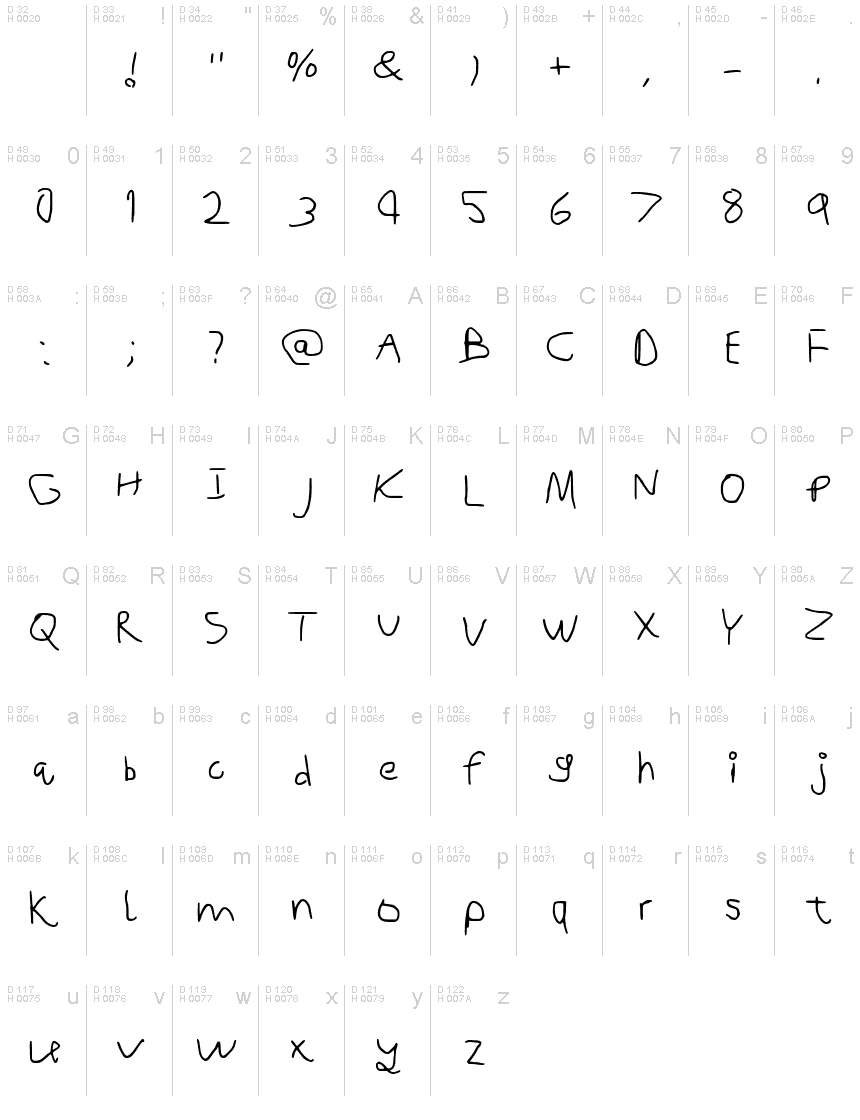
Little Kids Handwriting Regular
Little Kids Handwriting is a beautiful script font designed by Cloudy's Fonts. It has a light, school-like style that can be used to create a range of designs. Perfect for crafting invitations, posters and greeting cards, this font will add an extra touch of fun and creativity to your projects. Little Kids Handwriting is also ideal for making logos and social media graphics, as well as for designing party decorations or scrapbooking elements.